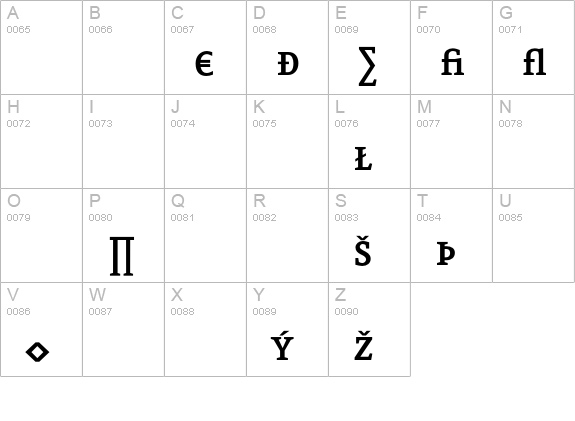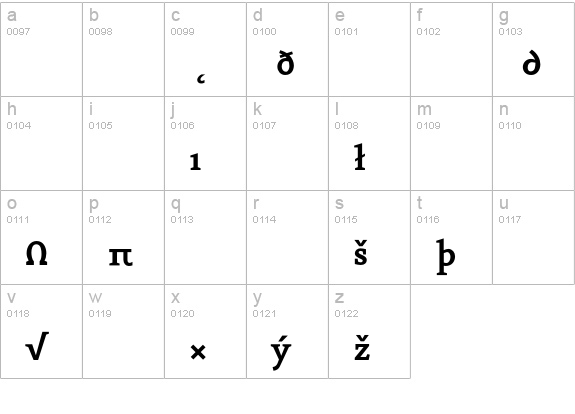
Eureka-BoldExpert Font Details
Eureka-BoldExpert is a versatile and modern font that exudes confidence and sophistication. With its bold and expertly designed letterforms, this typeface is perfect for making a strong statement in any design project. Whether you are creating eye-catching headlines or sleek branding materials, Eureka-BoldExpert is sure to command attention. What's even better is that Eureka-BoldExpert is available for free download at FontsMarket.com. This means you can easily access this premium font without any cost, making it a valuable addition to your font library. Don't miss out on the opportunity to elevate your designs with the striking elegance of Eureka-BoldExpert. Download it now and let your creativity shine.